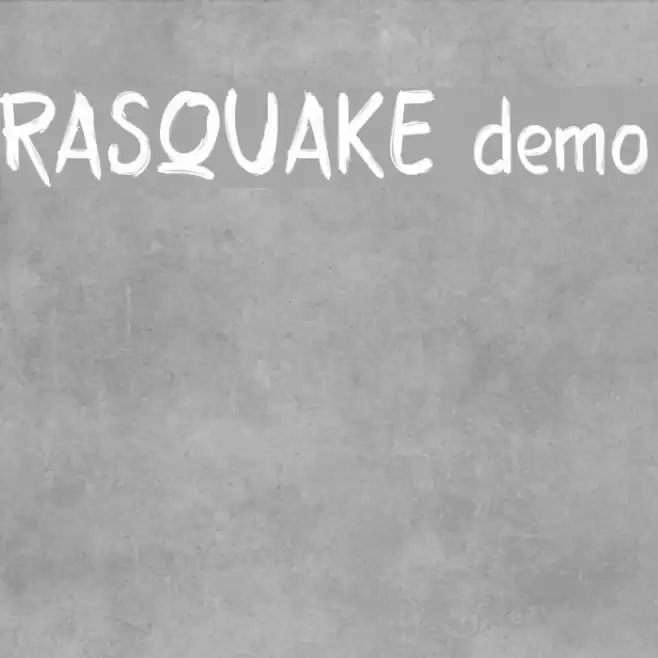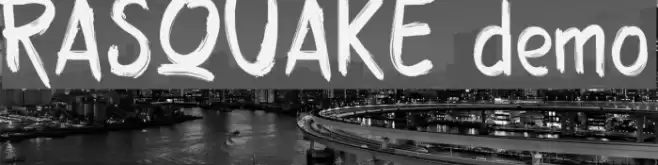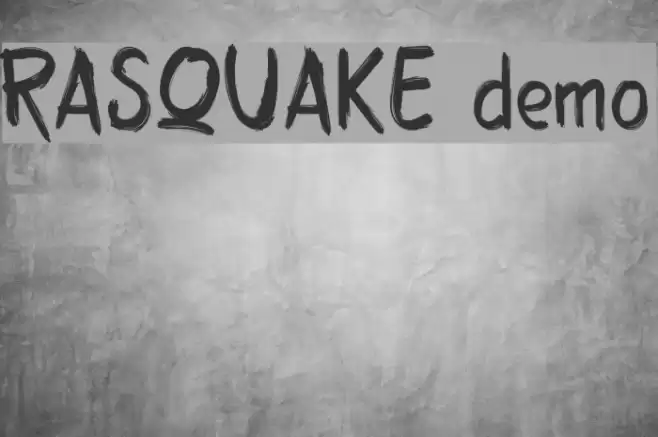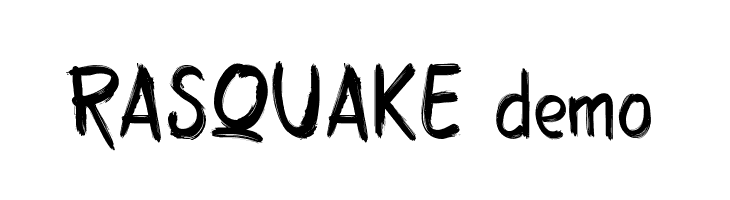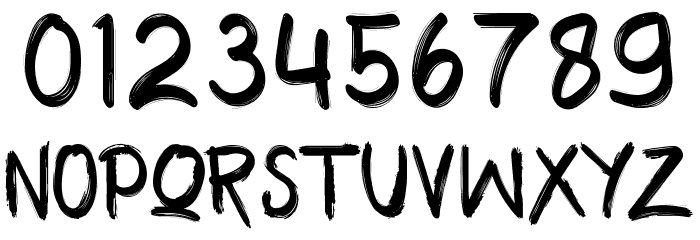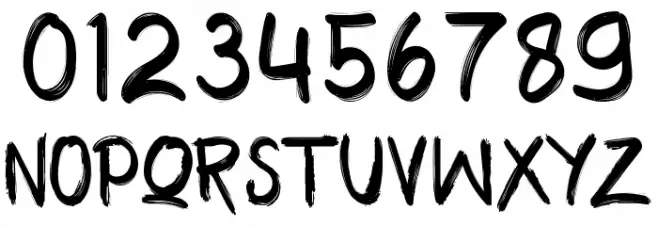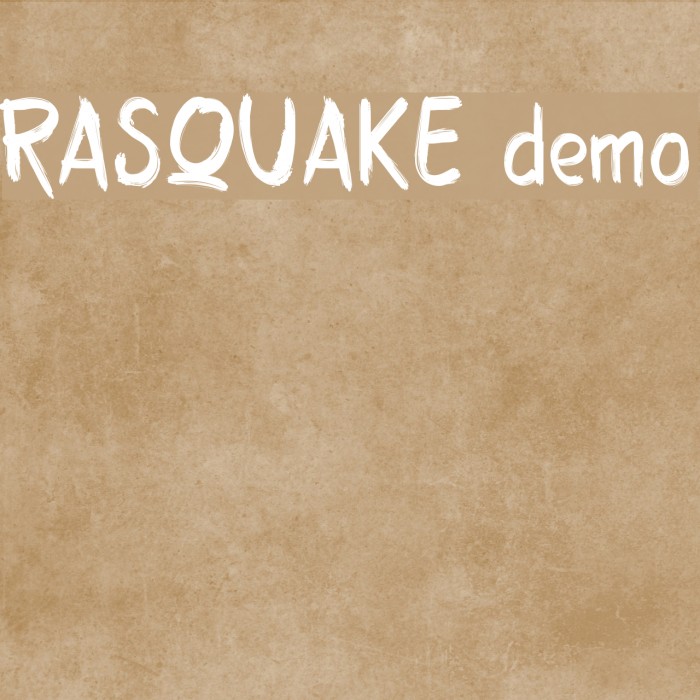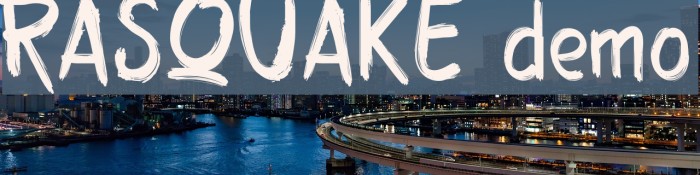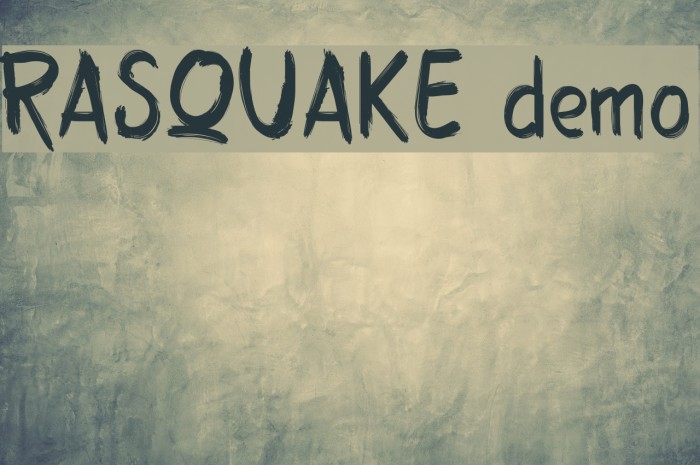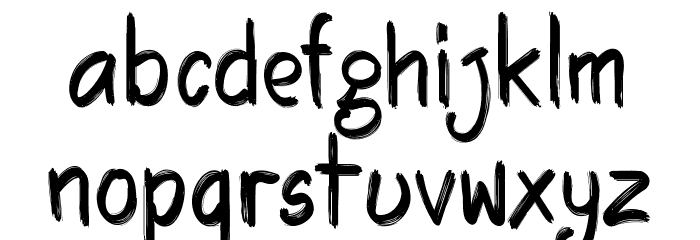
RASQUAKE demo Font
RASQUAKE demo Description
This font features a bold, expressive style with a hand-drawn appearance. The strokes are uneven and dynamic, giving each character a sense of movement and energy. The uppercase and lowercase letters maintain a consistent style, with slightly exaggerated curves and angles that add to the font's playful and artistic feel. The numbers and special characters follow the same design principles, ensuring a cohesive look across all elements. The overall impression is one of creativity and spontaneity, making it ideal for projects that require a personal touch.
A bold, hand-drawn font with dynamic strokes and a playful style from Uncategorized fonts.